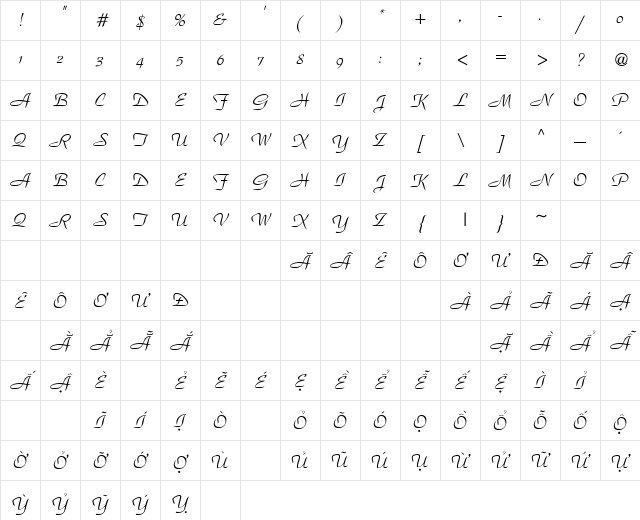
.VnParkH Medium
Design Context for .VnParkH
.VnParkH is a composed and adaptable typeface that performs quietly and consistently across a wide range of design contexts.